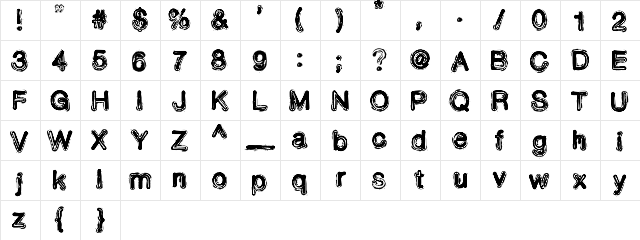
Toner Incident Regular
| Designer | Shara Weber |
Design Context for Toner Incident Typeface
Toner Incident is a composed and adaptable typeface that performs quietly and consistently across a wide range of design contexts.